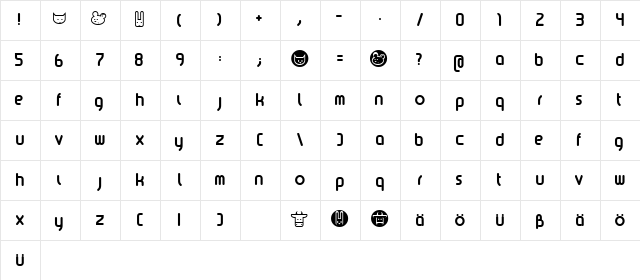
kazoo Regular
Design Context for kazoo Typeface
kazoo takes a measured approach to typography — its balanced proportions and neutral character make it a reliable workhorse for both digital and print work.